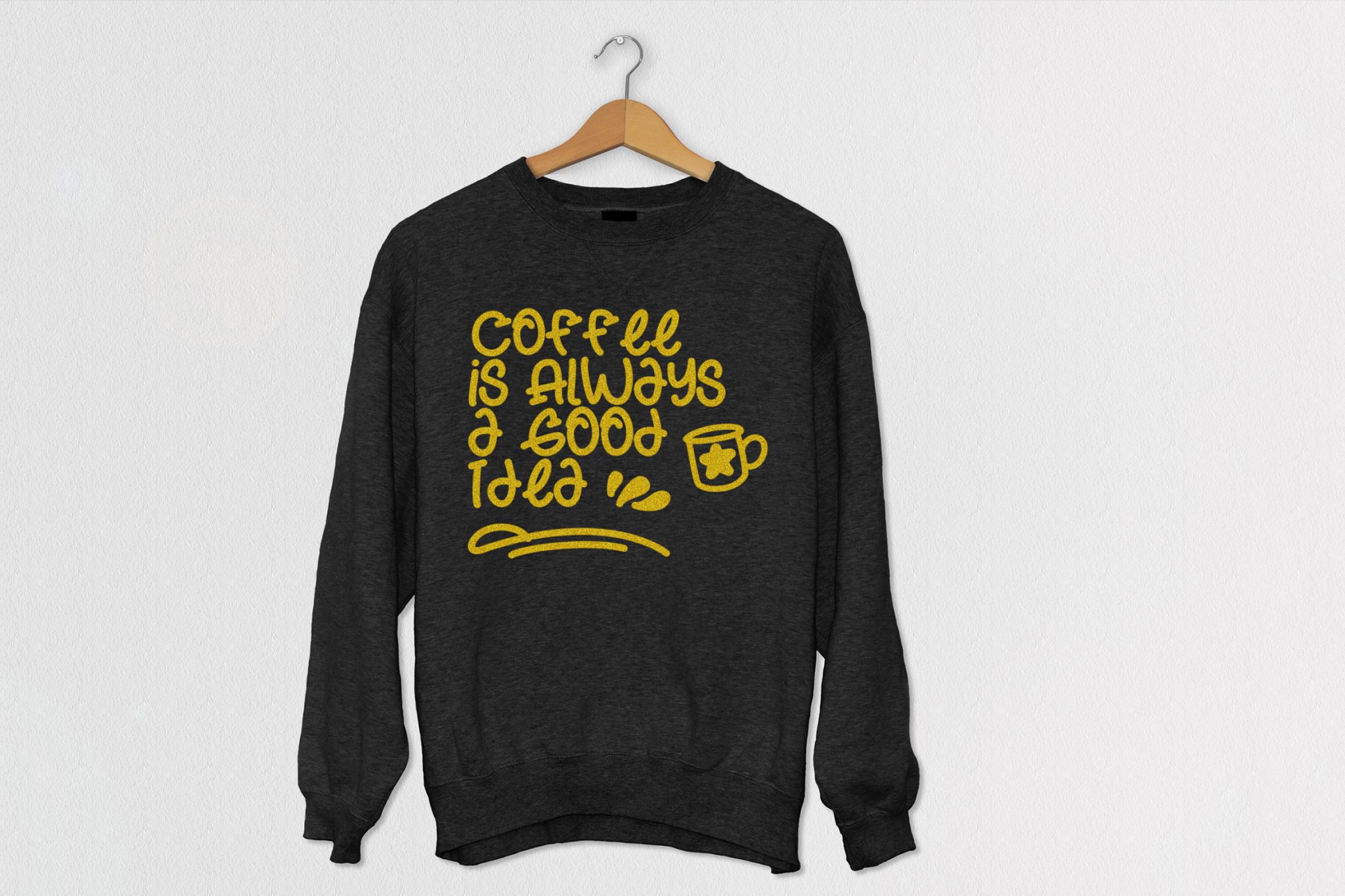
Frappe Latte is a tasty fun font, this font looks fun, cute, sweet, playful, catchy and easy to use.
Frappe Latte Font is the best choice for your professional design projects, including : logo, poster design, t-shirt, headline, flyer, cd cover album, quotes, business card, branding, magazines, social media, advertisements, product designs, or something that need sweet or tasty looks.